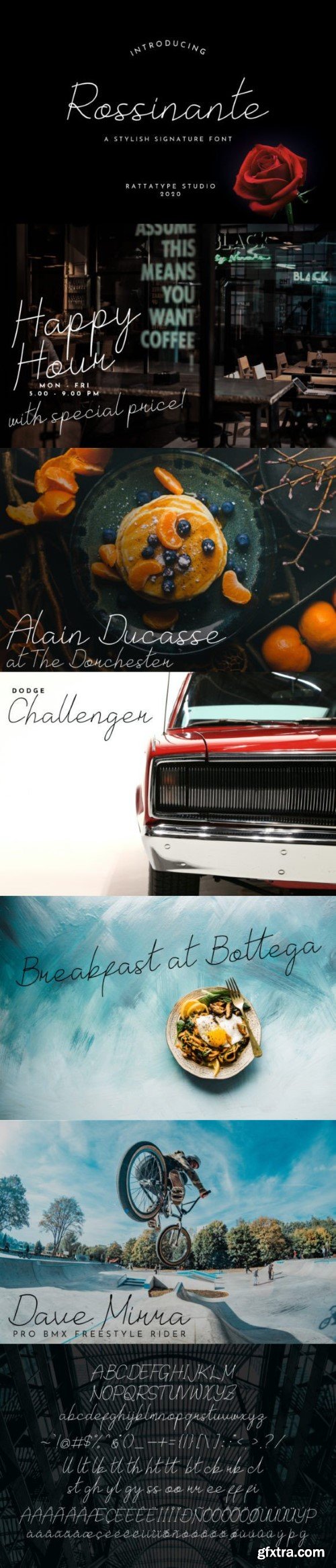
罗森坦字体
ROSSINANTE Typeface is a beautiful, luxurious, and elegant handwritten style font.
ROSSINANTE Typeface is very fashionable and elegant for use in photography, weddings, signatures, fashion tag lines, food and beverage, logos, and others.